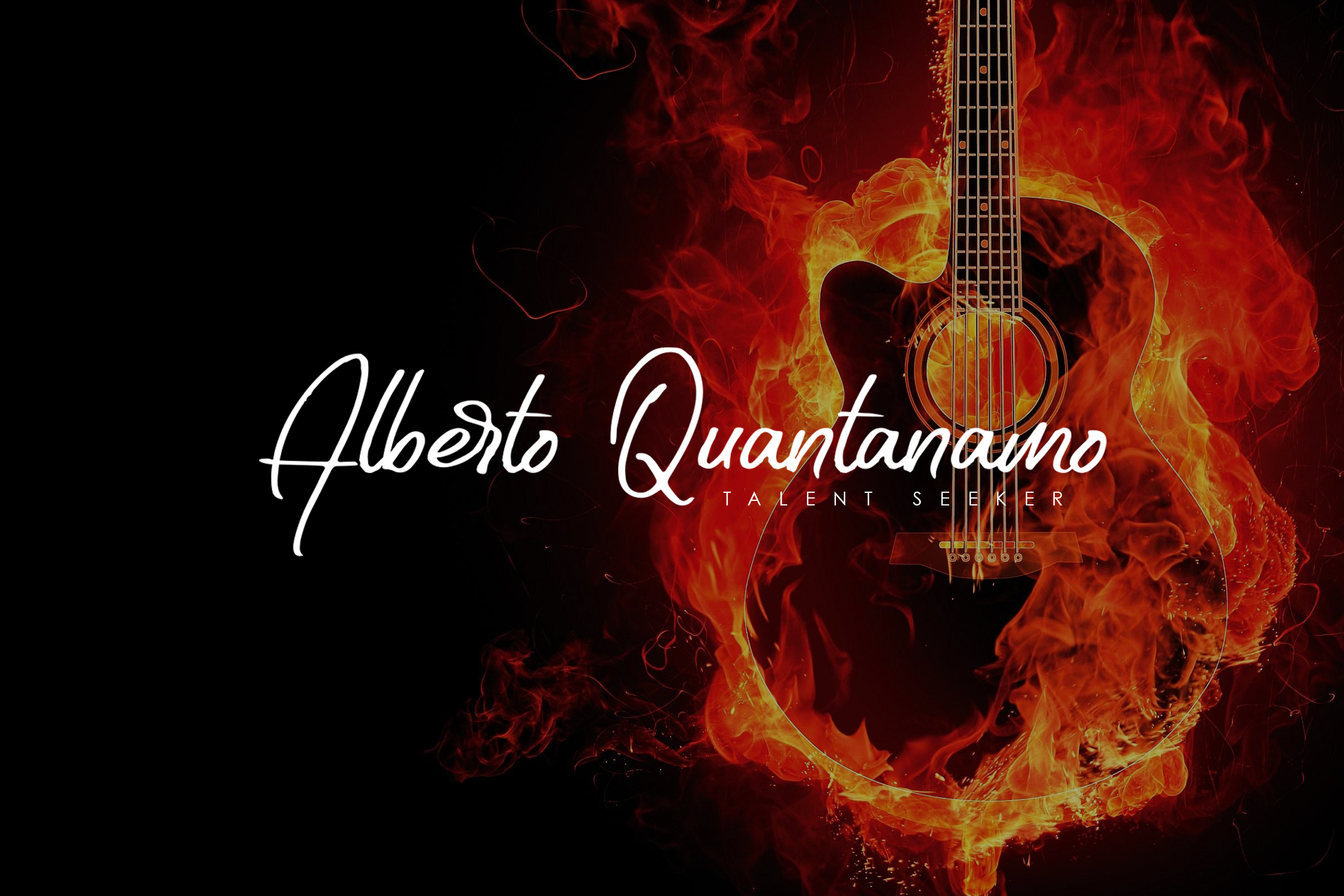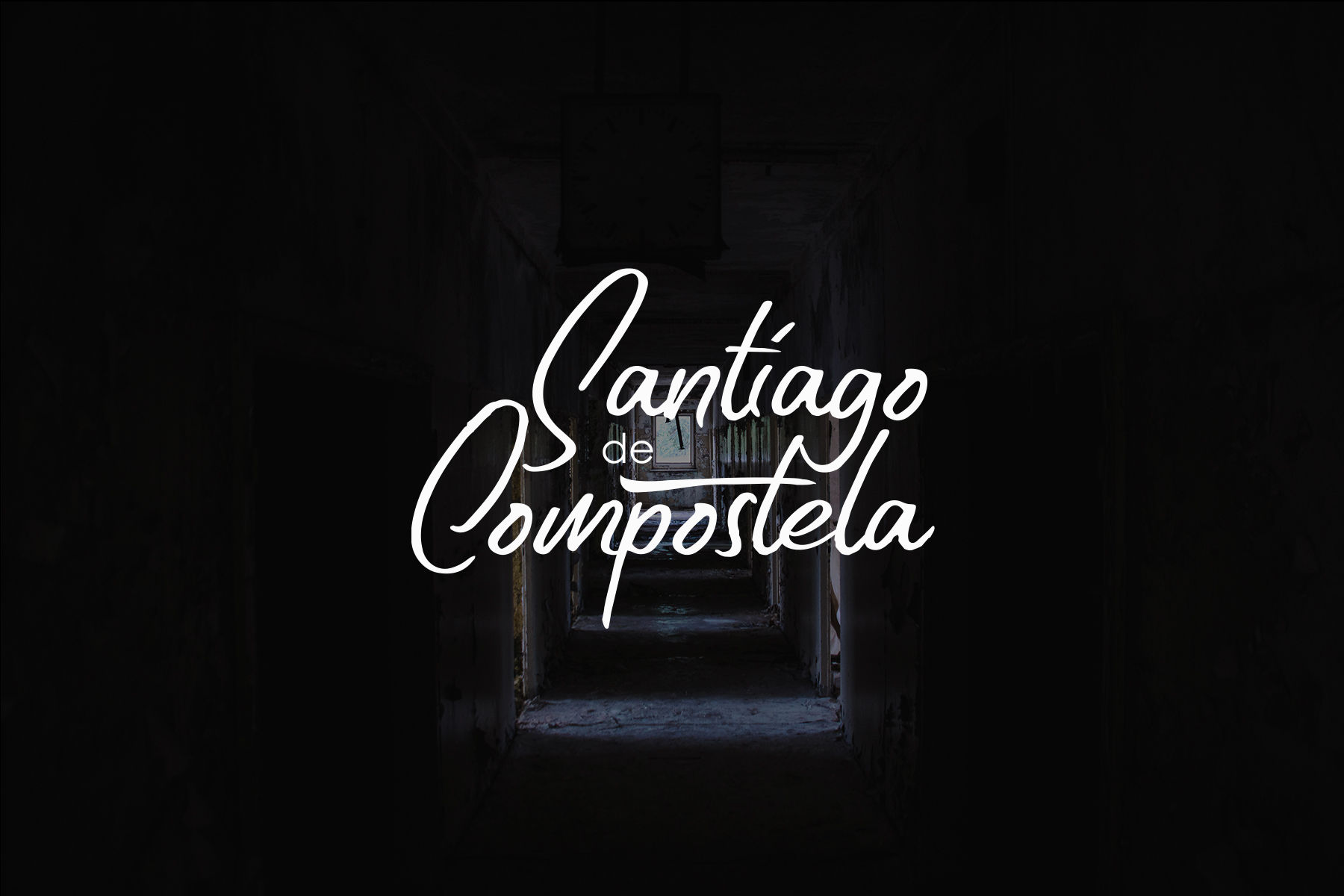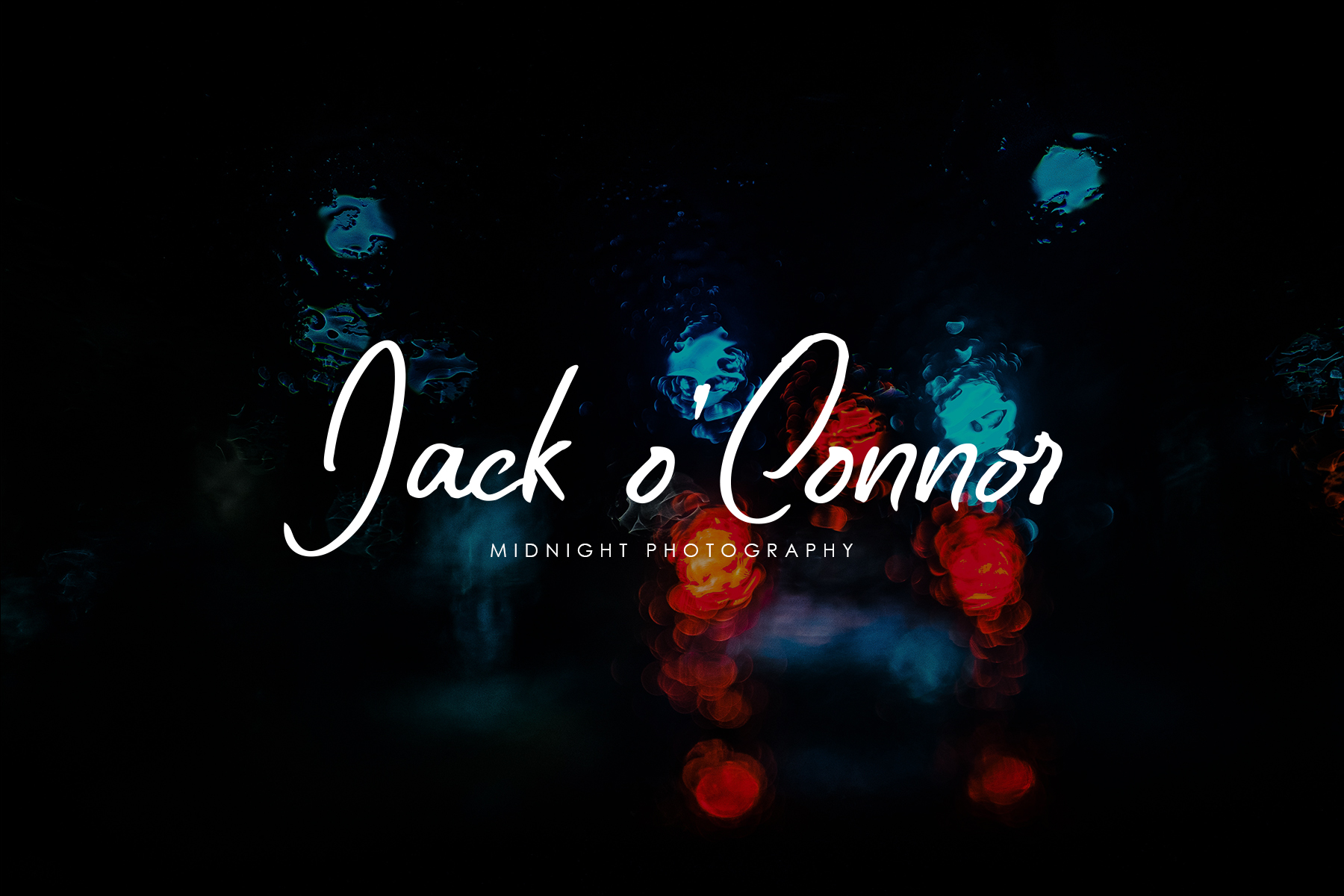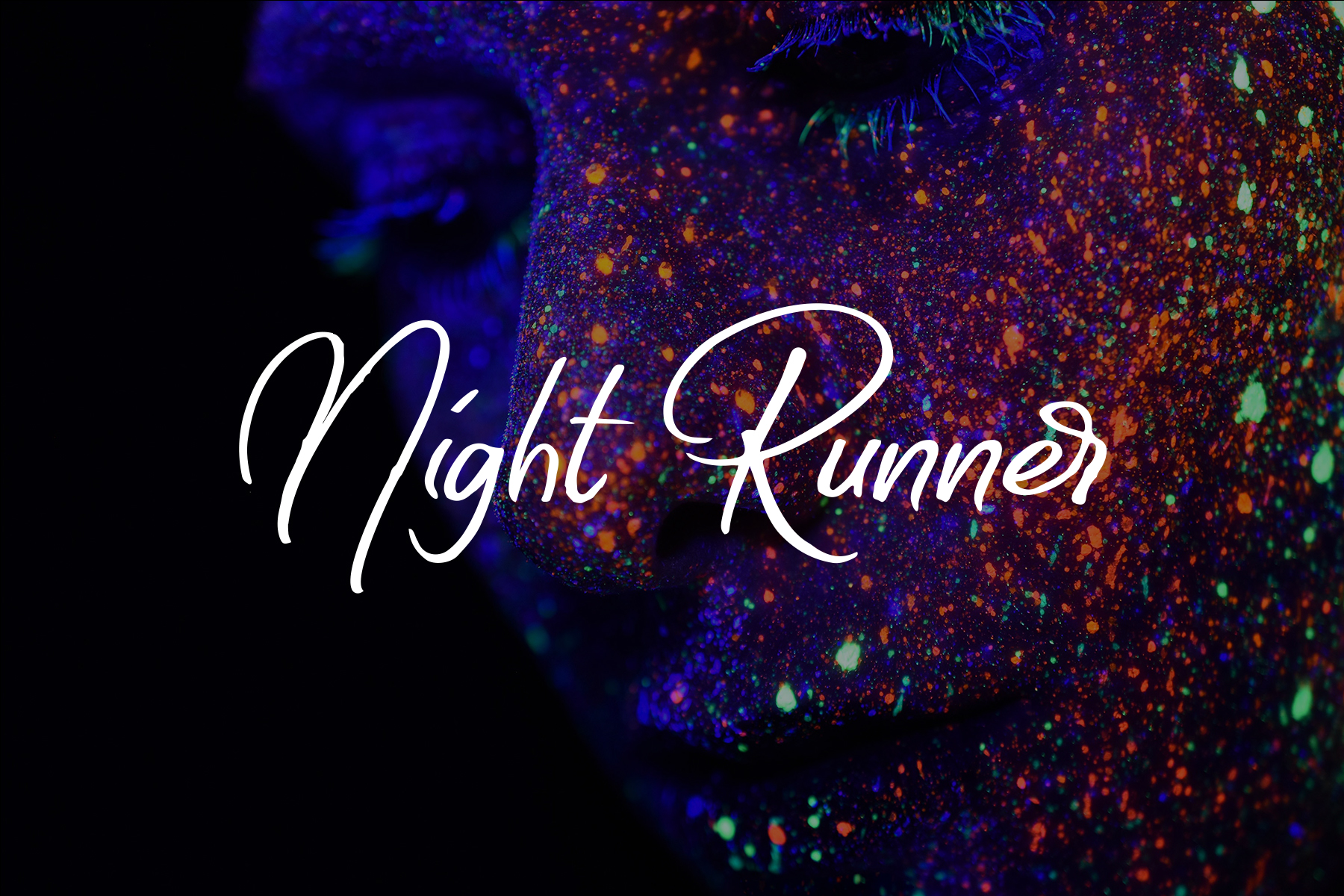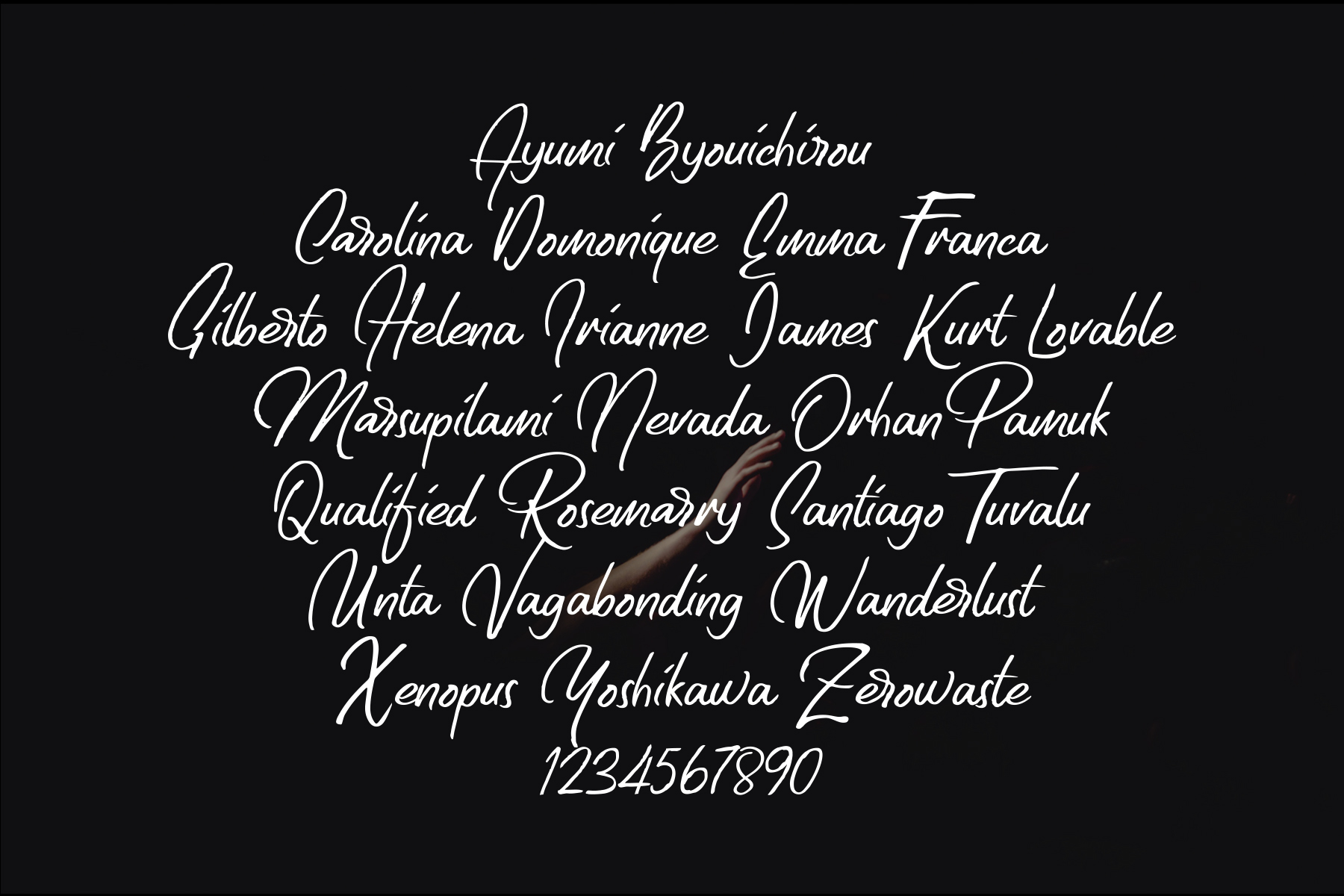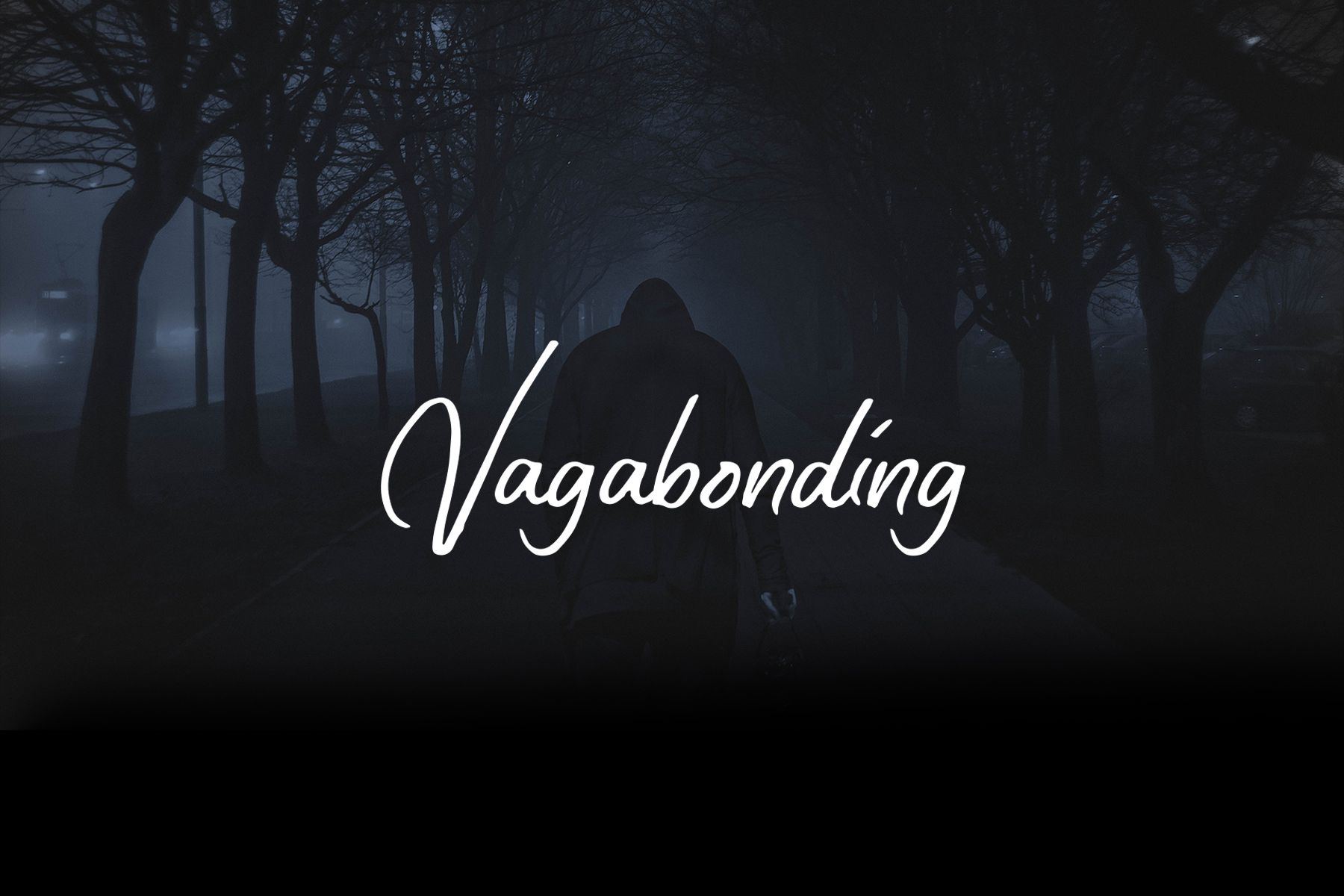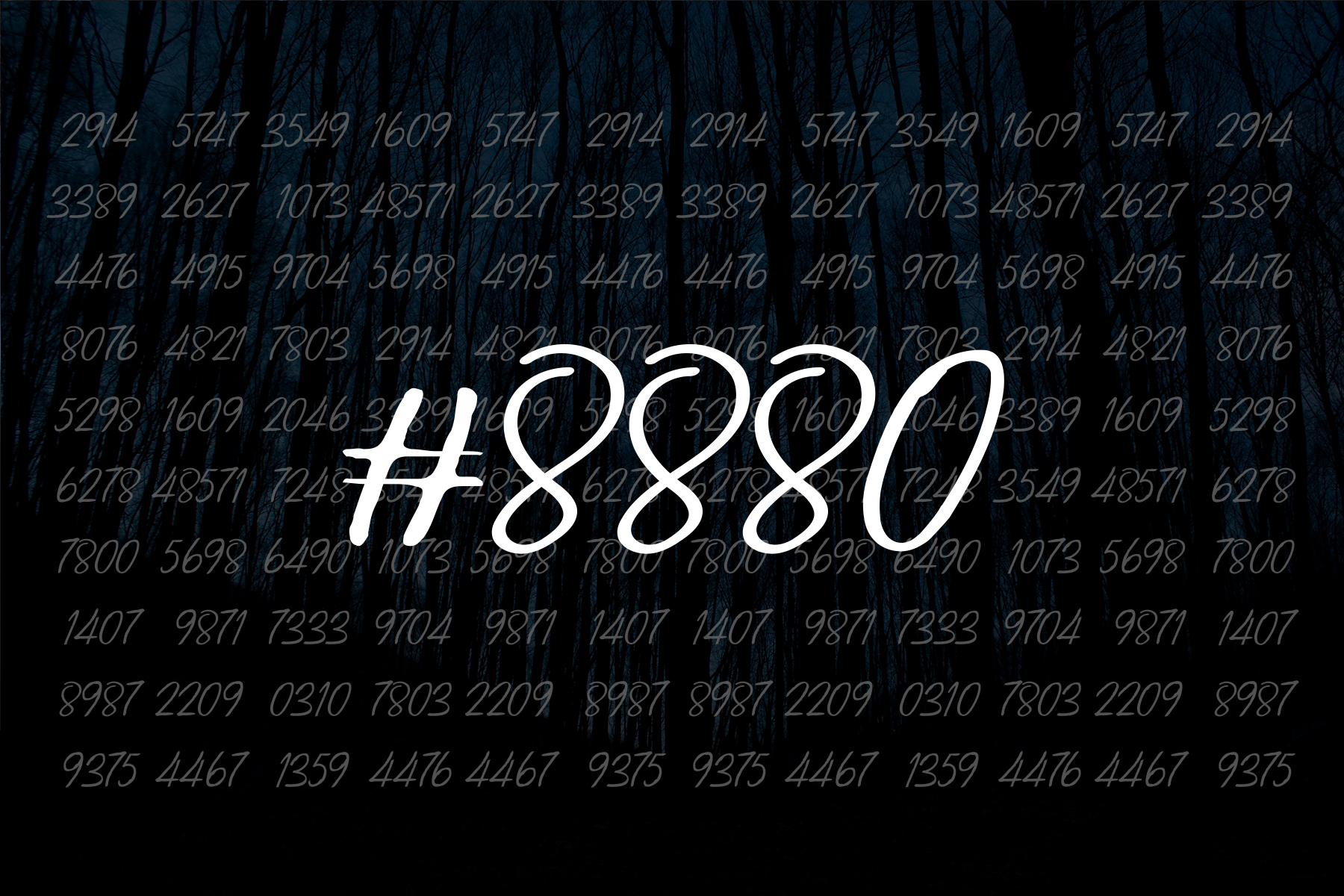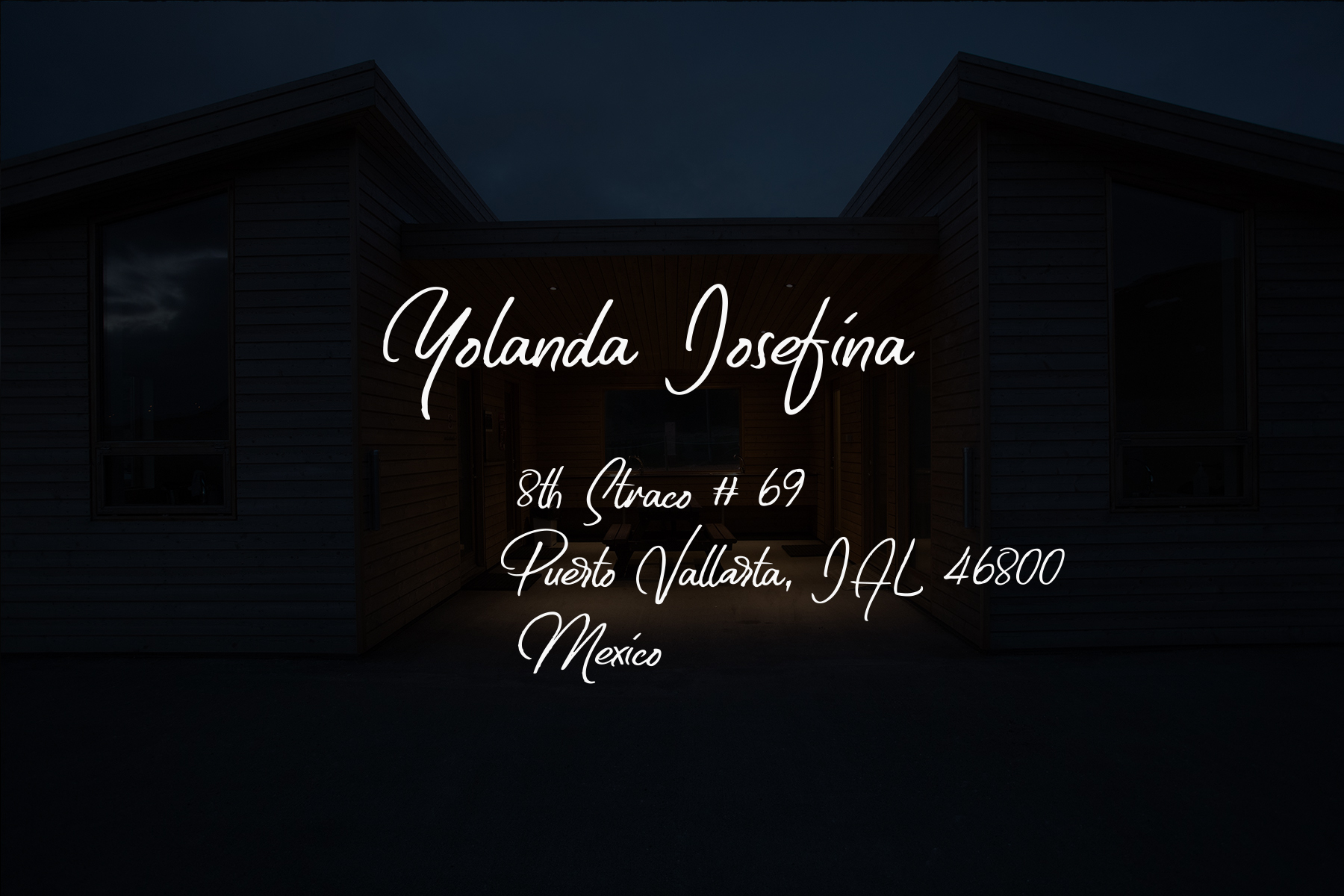
Original Sin Font
About Original Sin Font
Original Sin is something new, exciting & elegant.
The Original Sin font breathes an relaxed vibe, making it perfect for many occasions.